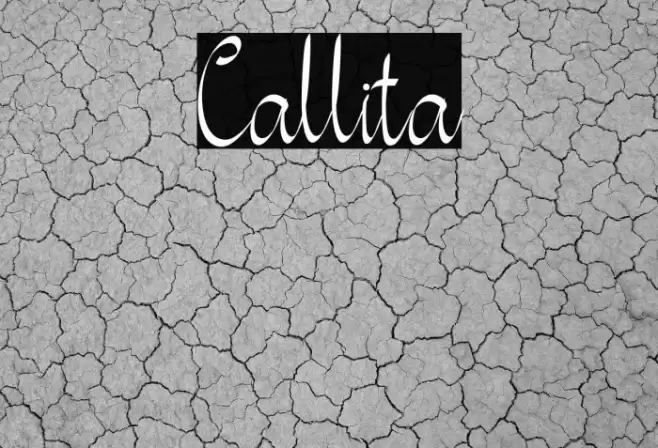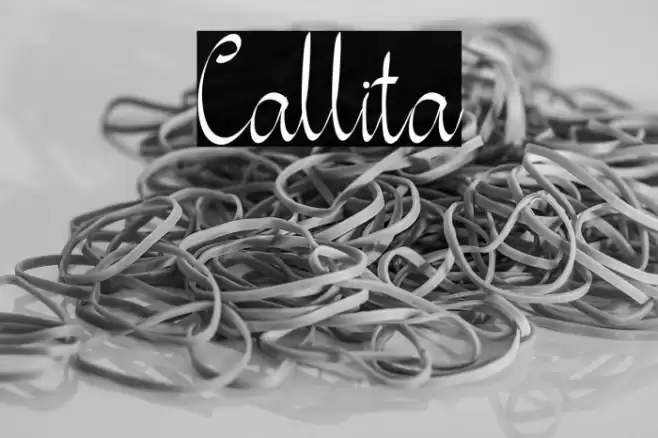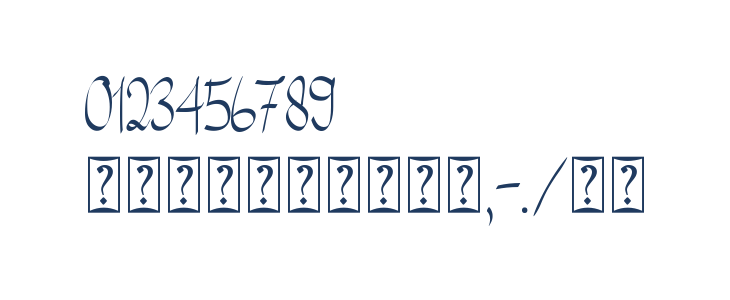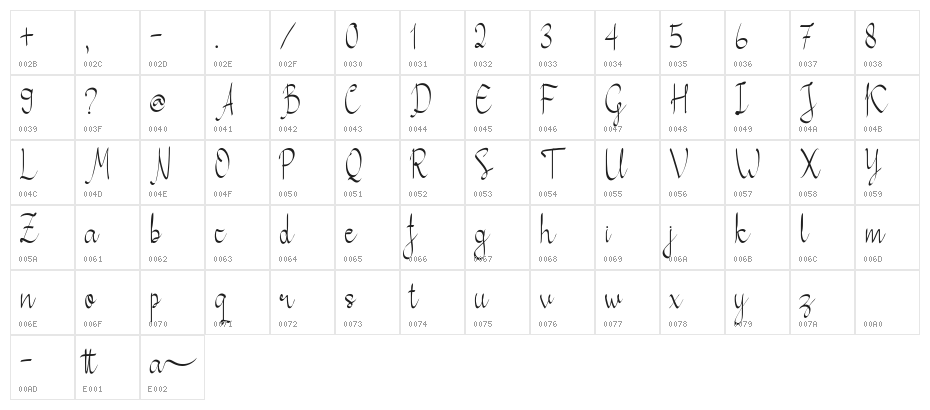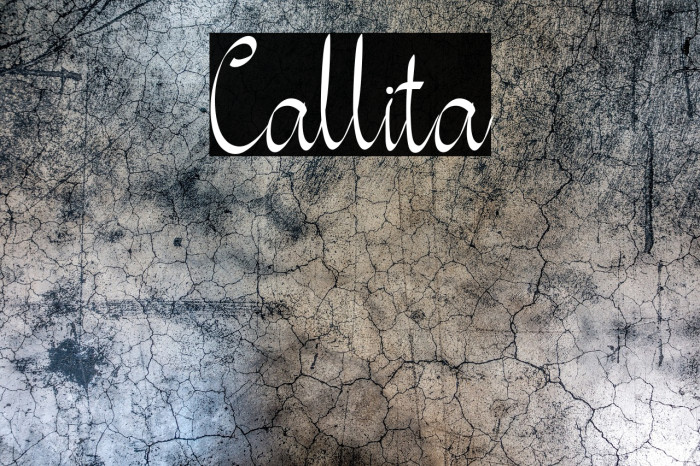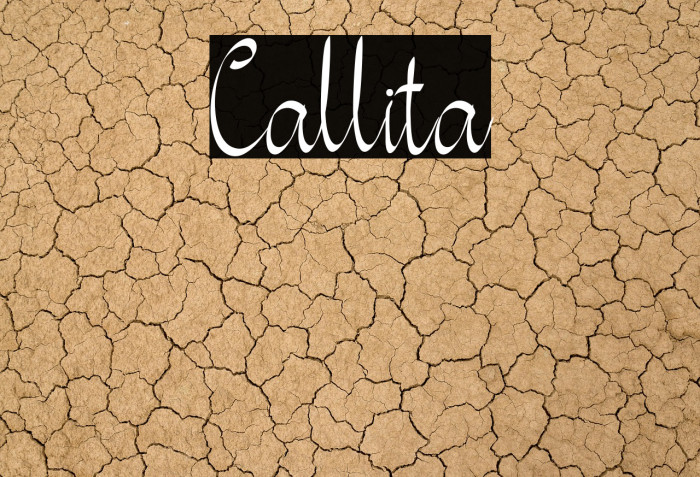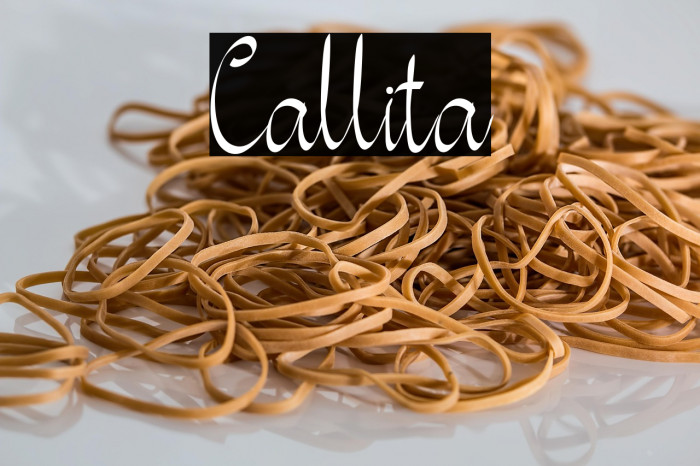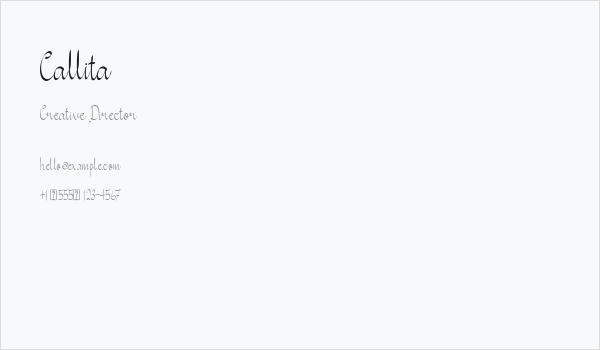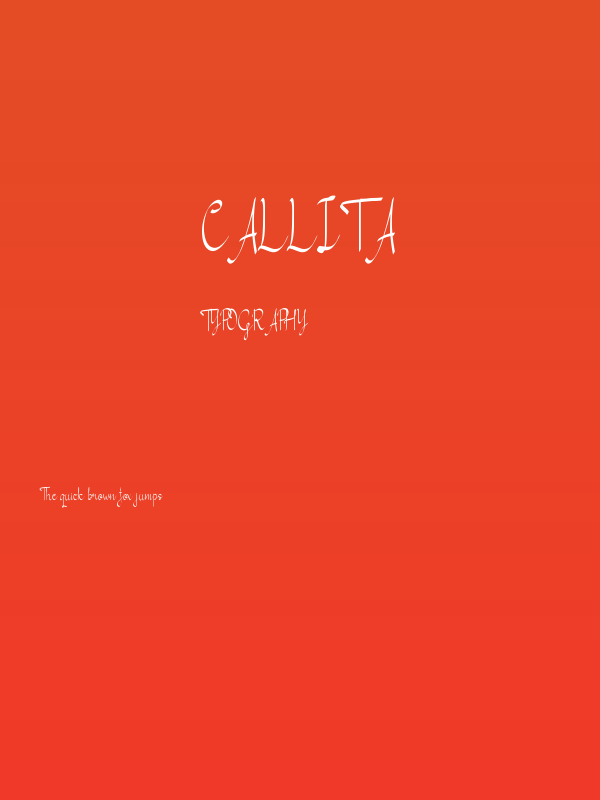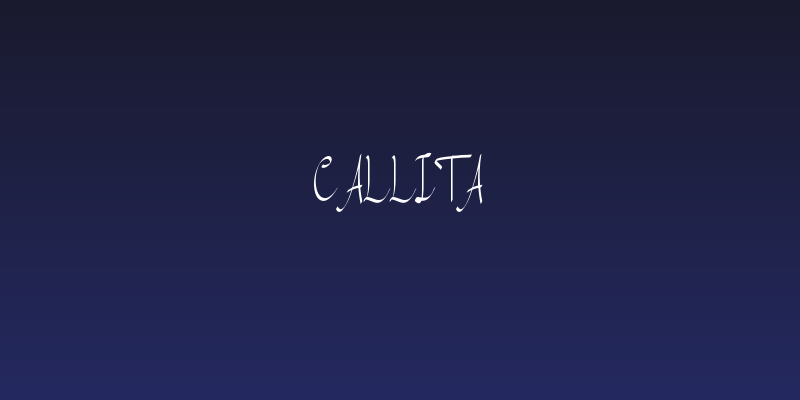
Callita Font
Callita Description
This font exudes a graceful and elegant script style, characterized by its flowing and interconnected letterforms. The uppercase letters are tall and slender, with a slight slant that adds a dynamic feel. The lowercase letters maintain a consistent flow, with loops and curves that enhance its handwritten appearance. The numerals are clear and legible, matching the overall aesthetic. Special characters are integrated seamlessly, maintaining the font's cohesive look. This font is perfect for projects that require a touch of sophistication and personal flair.
A graceful and elegant script font with flowing, interconnected letterforms from Uncategorized fonts.
- Proposed Projects: Ideal for wedding invitations, greeting cards, personal branding, and elegant packaging designs.
- Overall Style: Elegant
- Use Case: Logos, Invitations, Personal Branding